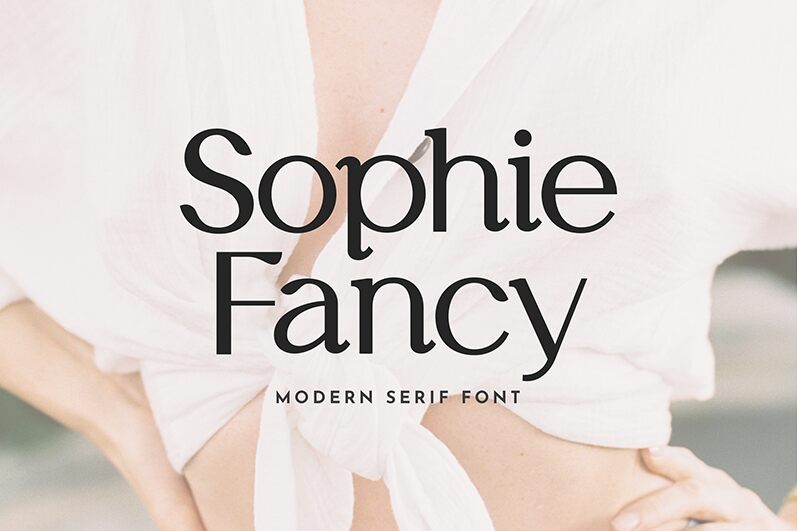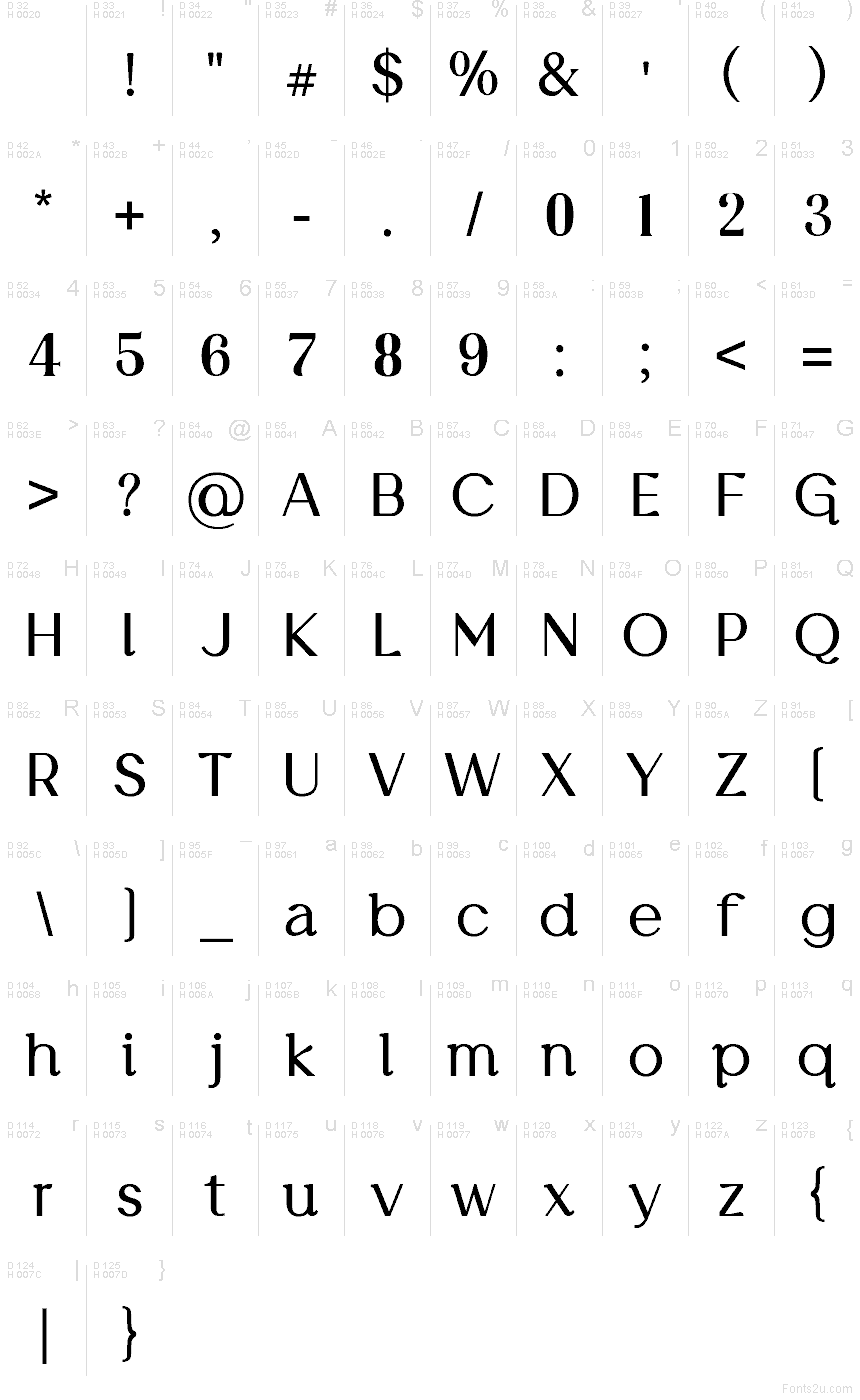
Sophie Fancy
Sophie Fancy font by UI Creative is a free elegant serif typeface that brings boutique-level polish to your layouts. Its slender stems, delicate curves, and subtly flared details give text a graceful, editorial feel without becoming fussy. The spacing feels airy and composed, so every word has room to breathe, making headlines look refined yet approachable.
Using Sophie Fancy, your wedding invitations, beauty branding, fashion lookbooks, packaging, book covers, and social media graphics gain a soft, sophisticated voice. This free font shines when set a little larger, where its fine nuances become visible. Pair it with a clean geometric sans for body copy to balance its romantic character and keep your designs feeling modern and fresh.